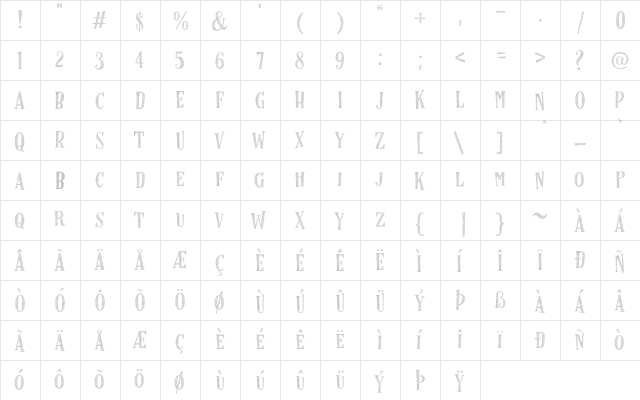
Les Paul Lined
| Style | Lined |
| Foundry | Pavel Korzhenko |
| Designer | Pavel Korzhenko |
Design Context for Les Paul Typeface
Les Paul takes a measured approach to typography — its balanced proportions and neutral character make it a reliable workhorse for both digital and print work.